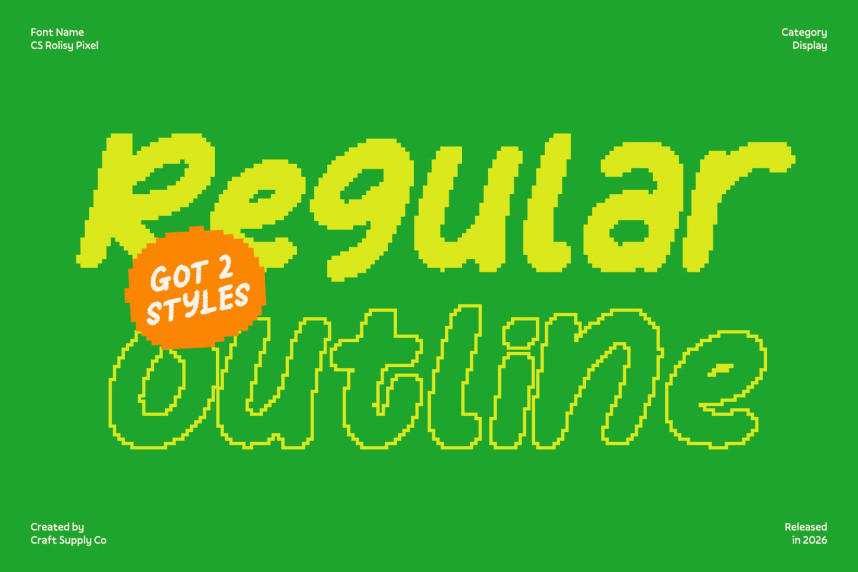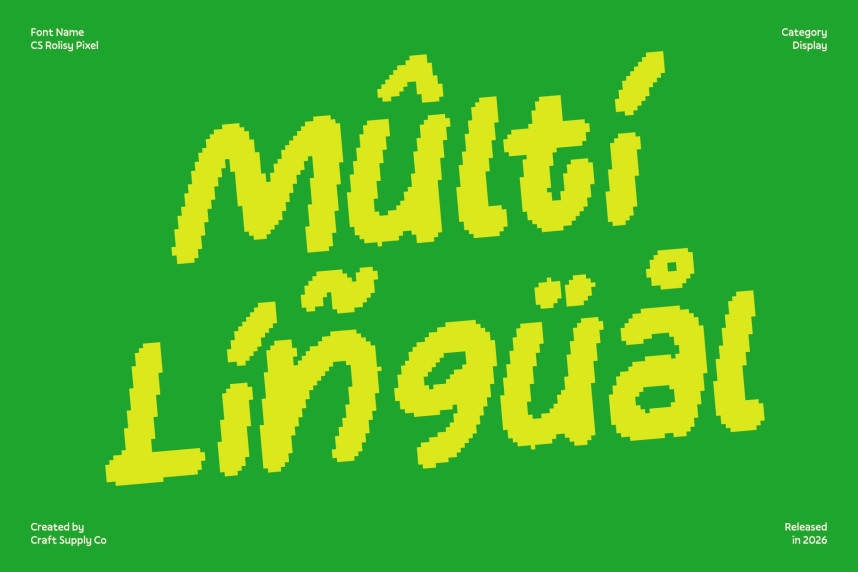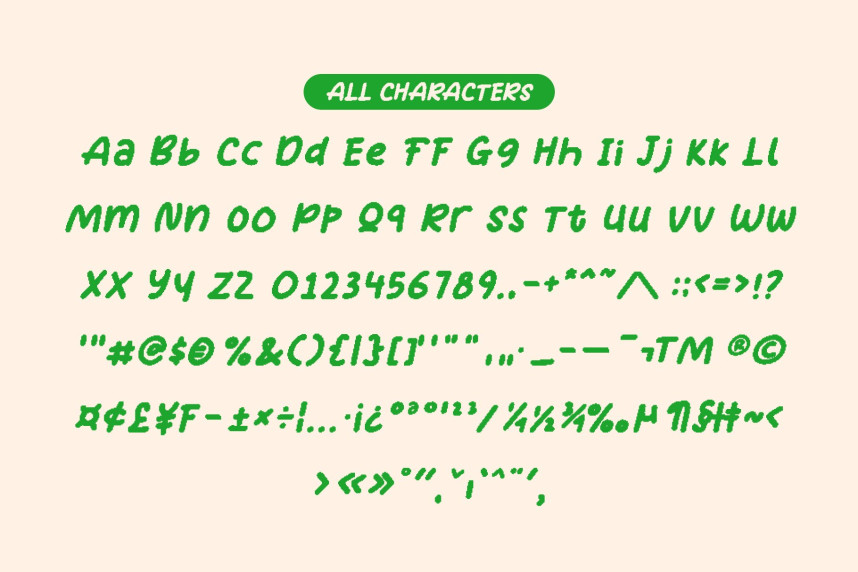
CS Rolisy Pixel Font
CS Rolisy Pixel Font – Playful Handwritten Display with Pixel Precision Modern Cheerfulness in Pixel Form. This reimagines the original modern handwritten display font with crisp pixel edges. The joyful, expressive character of the handwriting is preserved, but every curve and stroke is translated into bold, pixel-perfect blocks. The result is a font that feels lively, approachable, and perfect for digital or retro-tech projects.